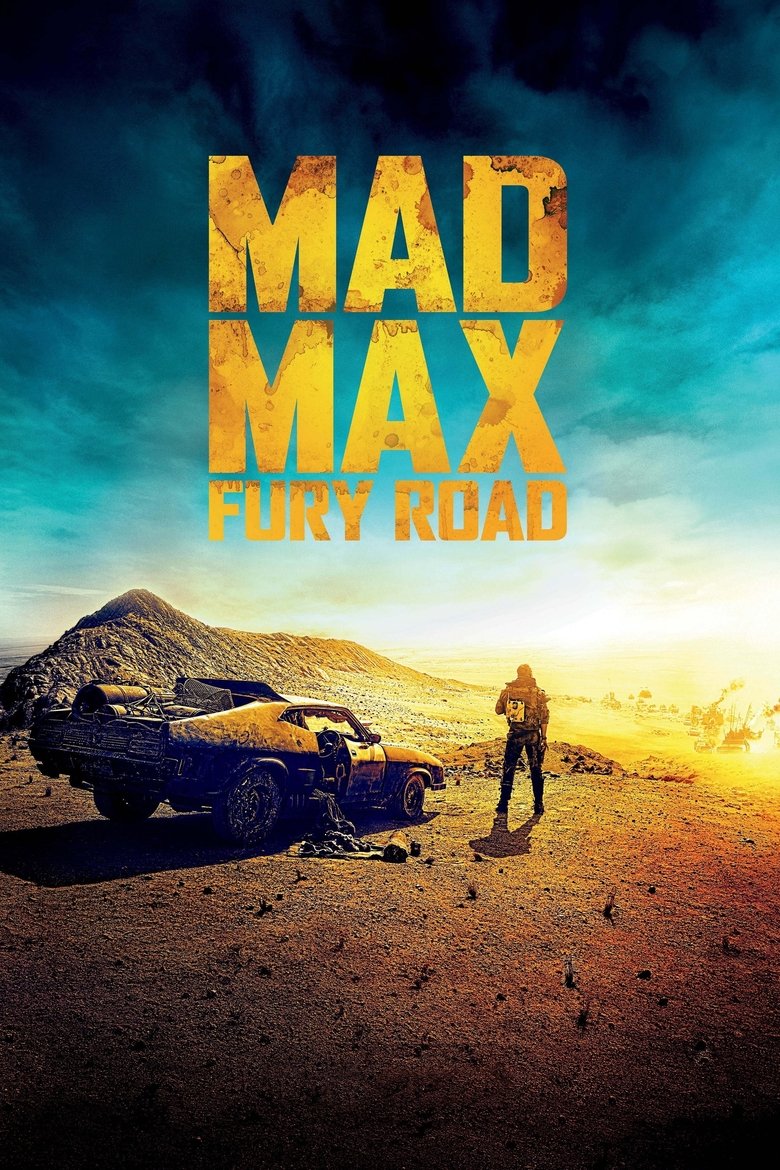
About the Mad Max font
Mad Max's logo is heavy, scorched and stencilled. Black Ops One brings that same wasteland-metal aggression.
What font is used in the Mad Max logo?+
The original Mad Max logo uses custom lettering. This generator recreates the look with Black Ops One — a free, open-license font you can style and download.